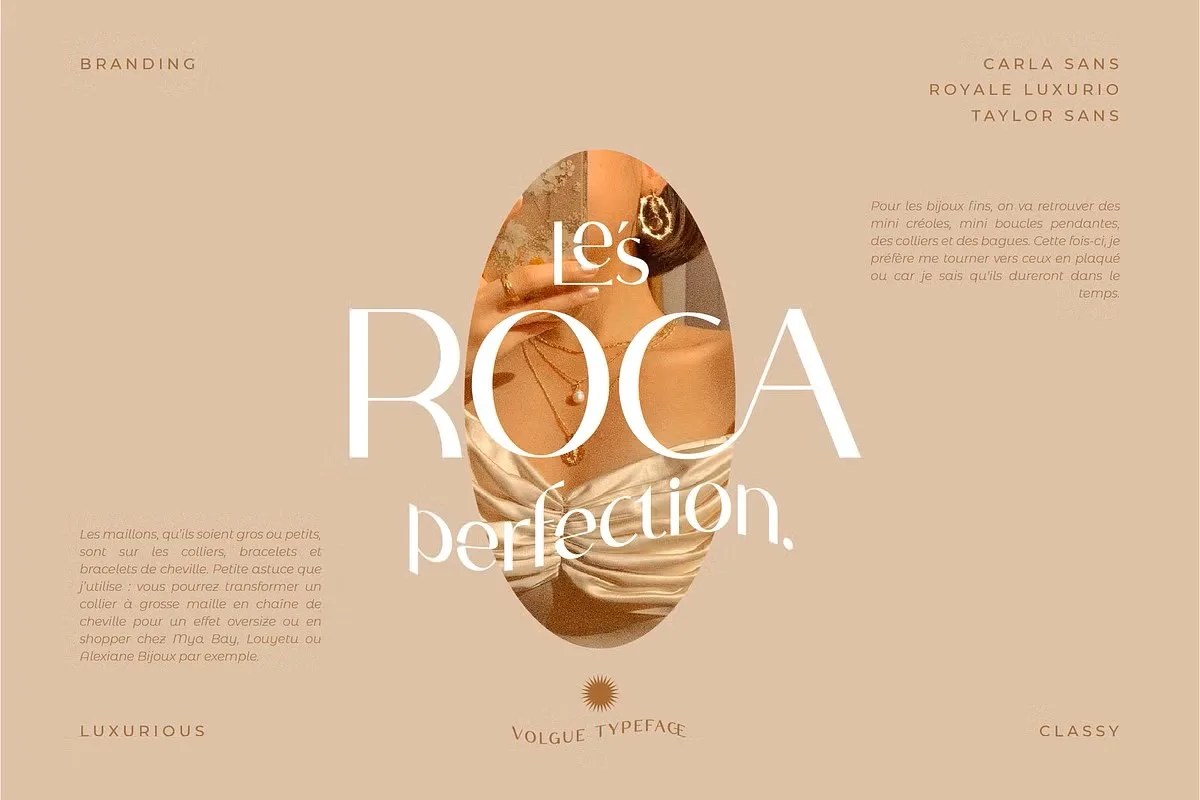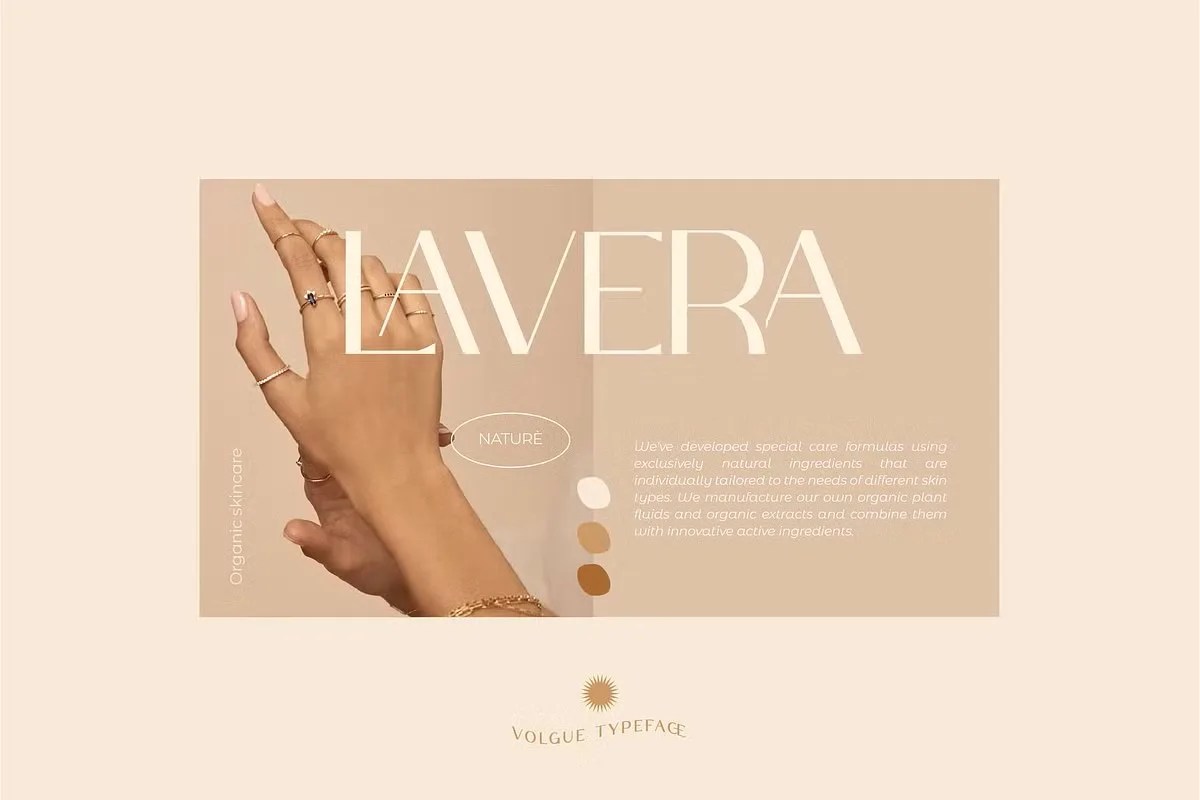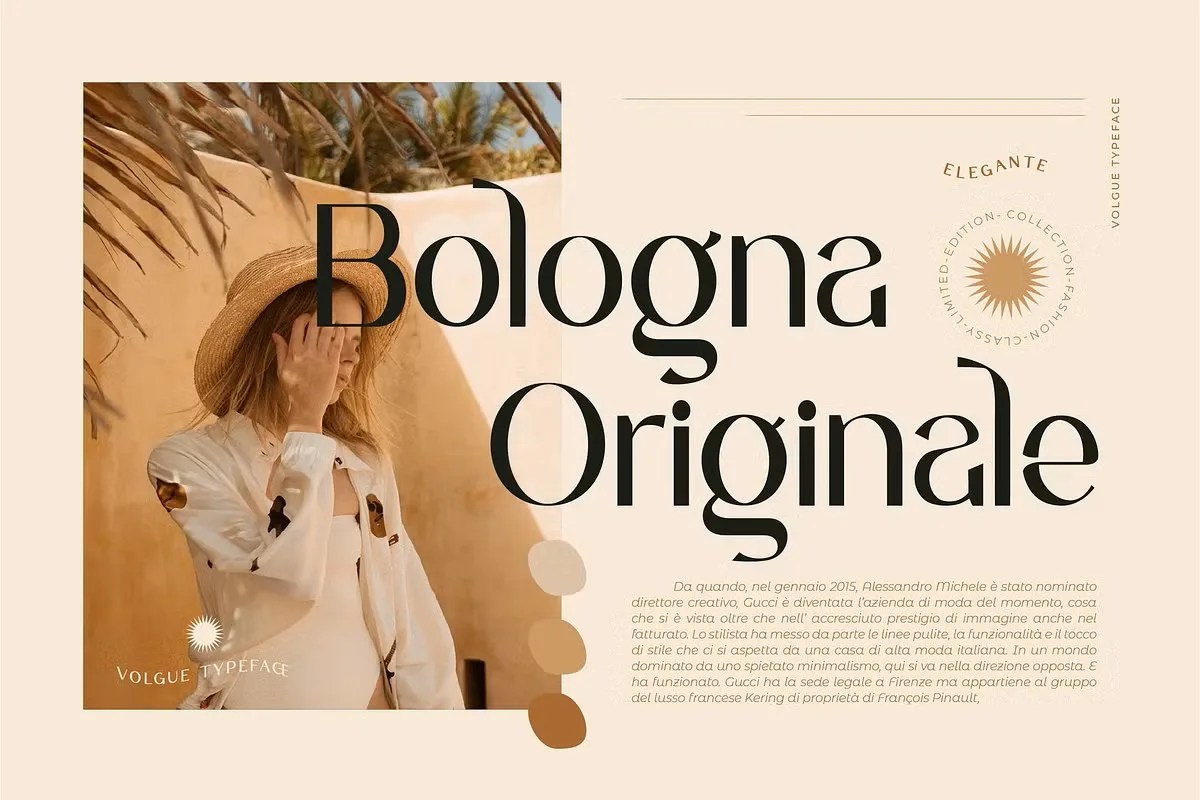
Volgue by Creative Corner is a modern sans serif font that blends elegance with professional simplicity. With its sleek lines and balanced proportions, Volgue is designed to bring a contemporary and stylish look to any project.
Perfect for branding, logos, editorial layouts, packaging, posters, and digital media, this font ensures readability and sophistication across both print and screen. Its timeless design makes it suitable for both creative and corporate applications.
• Elegant and modern sans serif style
• Perfect for branding, logos, and corporate identity
• Clean and balanced typography for clear readability
• Works beautifully in print and digital formats
• Stylish choice for packaging, posters, and editorial design
• Professional appeal with versatile usability
• Minimalist design with a contemporary touch
Volgue